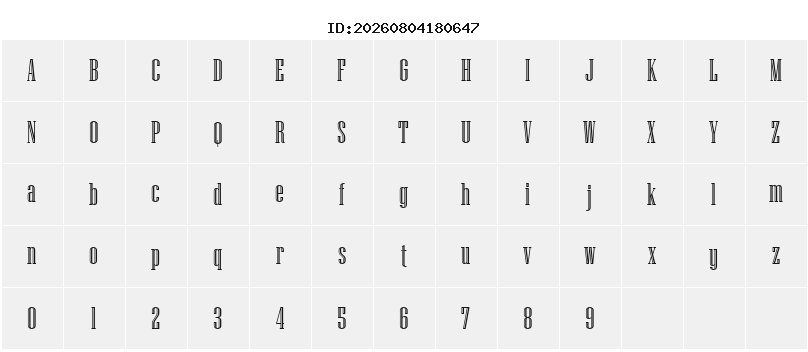
• Font Name: Niagara Engraved
• Designer: Tobias Frere-Jones
• Manufacturer: The Font Bureau, Inc.
• Description: While not a revival in the strictest sense of the word, Niagara recalls the crisp, elegant geometry found in some of the best American styles from the thirties and forties. The four condensed weights were designed by Tobias Frere-Jones, who found inspiration in the straight-sided geometric fonts from that era.
Niagara Engraved.ttf is a modern, elegant sans-serif font designed for ultimate readability and visual harmony. Perfect for branding, headlines, web design, and print materials.